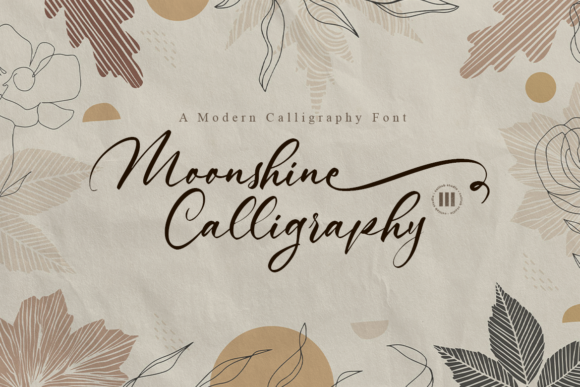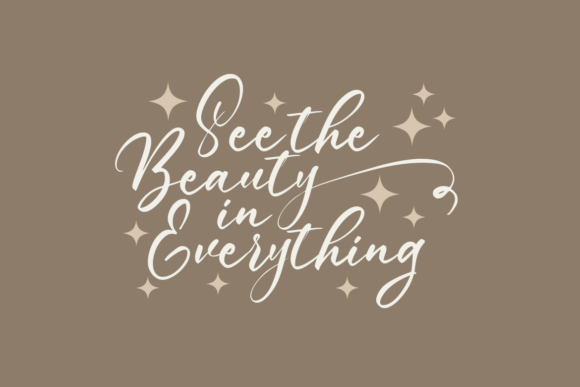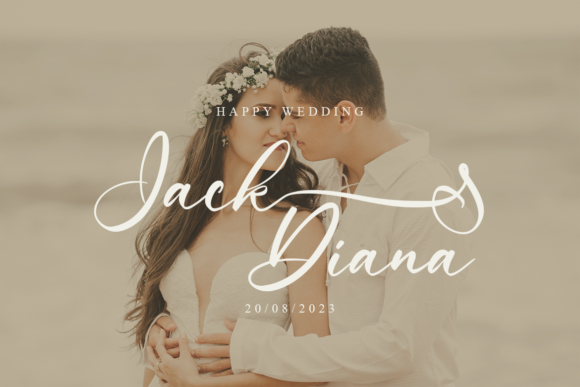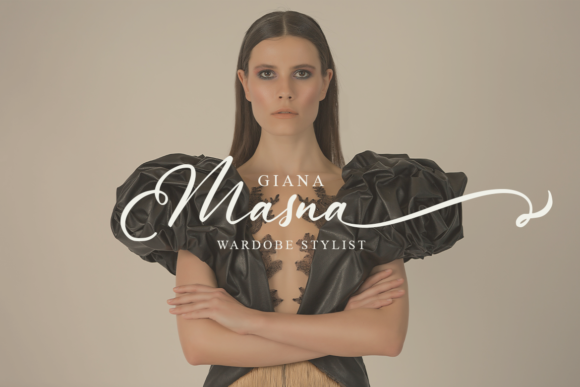
Moonshine Calligraphy Font
About the Moonshine Calligraphy Font
Presenting Moonshine Calligraphy Font, a unique and stylish typeface that will make your work stand out. Moonshine Calligraphy is an enchanting handwritten font. This versatile script font has a wide spectrum of applications ranging from greeting cards to headlines. Moonshine Calligraphy is PUA encoded which means you can access all glyphs and swashes with ease!
Its elegant, slightly whimsical style makes Moonshine Calligraphy ideal for projects requiring a touch of sophistication and charm. It excels in headlines, logos, short quotes, and invitations, lending a handcrafted feel to branding and packaging for products aimed at a female demographic or those emphasizing artisanal quality. Avoid using it for large blocks of body text or UI elements; its delicate strokes and varying letterforms are not optimized for readability in extended passages.
Pairing Moonshine Calligraphy with a clean sans-serif like Montserrat for body text creates a balanced contrast, while a classic serif such as Garamond adds a touch of timeless sophistication. For a more modern feel, consider pairing it with a geometric sans-serif like Futura.
The overall personality of Moonshine Calligraphy is refined yet approachable, conveying a sense of both elegance and warmth. It’s versatile enough to suit a variety of applications, but its strengths lie in highlighting key elements and adding a personal touch.
Moonshine Calligraphy Font Usage Examples
Moonshine Calligraphy Font Example